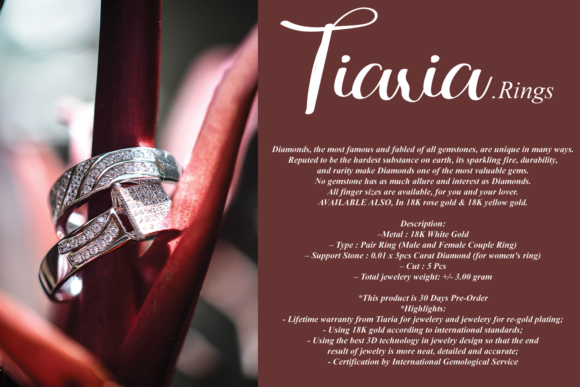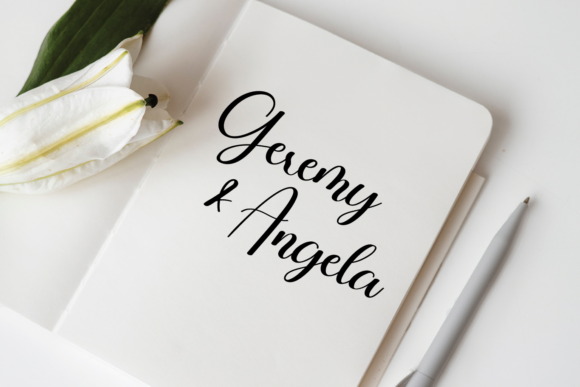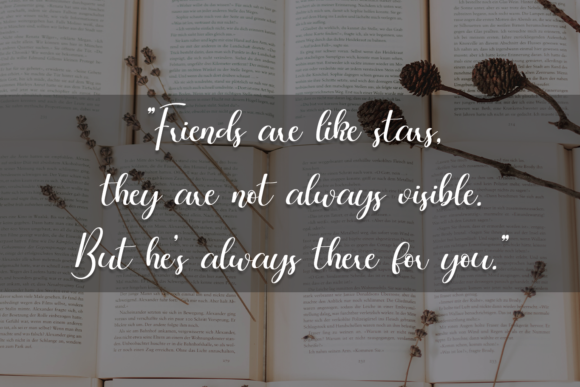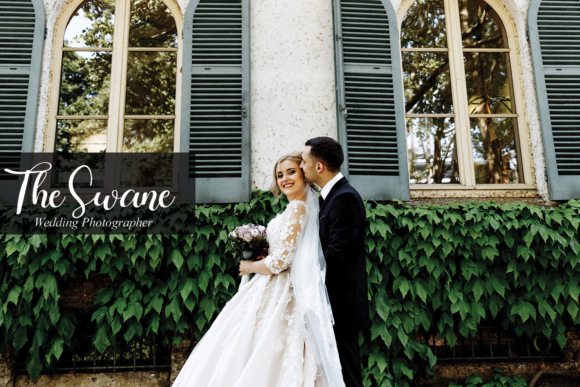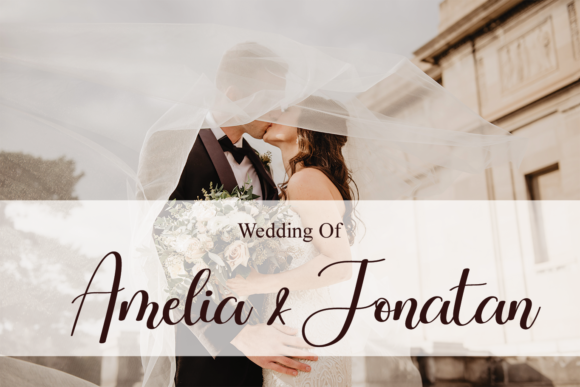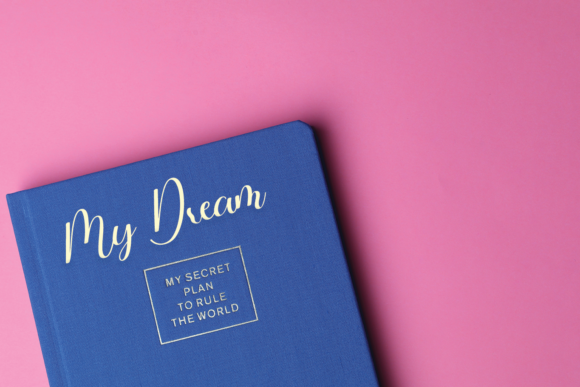
The Perfect Font to Believe In
Have you ever stared at a blank page, feeling the pressure of a looming deadline, and suddenly, a spark of creativity ignites within you? That’s the moment when the perfect font can make all the difference. For designers, finding the right font can be a game-changer, elevating their work from good to great. And that’s exactly where the Believe Font comes in.
This exquisite handwritten font is a masterclass in balance and elegance, effortlessly blending classic calligraphic influences with a modern twist. Whether you’re designing a wedding invitation, a brand logo, or a social media campaign, the Believe Font is sure to bring your projects to life. Its versatility and sophistication make it a valuable addition to any designer’s toolkit.
Key Features of Believe Font
- Unique Characteristics: The Believe Font features a unique blend of modern and vintage elements, with intricate details and ornate flourishes that set it apart from other fonts.
- Font Style: Believe Font is available in three different styles: Regular, Italic, and Bold, providing users with flexibility and versatility in their design choices.
Believe Font Review
At first glance, the Believe Font is a beautiful and eye-catching font that can add a touch of elegance to any design. ✨ The flowing lines and smooth curves create a sense of sophistication and can work well for luxury brands or high-end products.
One of the standout features of the Believe Font is its versatility. ✨ It comes in a range of weights and styles, making it suitable for both headings and body text. The font also has a unique flair that sets it apart from more generic sans-serif fonts.
However, there are a few limitations to consider: ⚠️ The Believe Font may not be the best choice for small text or at small sizes, as the lines can become blurry and difficult to read. Additionally, the font’s unique style may not be to everyone’s taste, and it may not be suitable for all types of projects.
Overall, I think the Believe Font is a solid choice for designers looking to add some sophistication and elegance to their work. While it may have some limitations, its unique style and versatility make it a great option for the right project.
- Works well for luxury brands or high-end products
- Comes in a range of weights and styles
- Unique flair sets it apart from generic sans-serif fonts
- May not be suitable for small text or small sizes
- Unique style may not appeal to everyone
Believe Font: A Practical Application Guide
Getting the Most Out of the Believe Font
To get the most out of the Believe font, try using it in bold or italic styles to add emphasis to your text. You can also experiment with different font sizes and colors to create a visually appealing design.
The Believe font is commonly used in inspirational and motivational designs, such as quotes, posters, and social media graphics. It can also be used in branding and marketing materials to create a sense of confidence and trust.
Alternatives to Believe Font
Pacifico is a beautiful, elegant script font that is perfect for adding a touch of sophistication to your designs. It features a mix of modern and vintage elements, making it suitable for various projects such as wedding invitations, branding, and packaging.
Compared to Believe Font, Pacifico has a more refined and polished look, while Believe Font is more playful and cursive. Pacifico is ideal for designs that require a sense of luxury and elegance.
Great Vibes is a stylish, modern script font that is perfect for creating a unique and eye-catching design. It features a mix of curved lines and geometric shapes, making it suitable for various projects such as advertising, social media, and fashion branding.